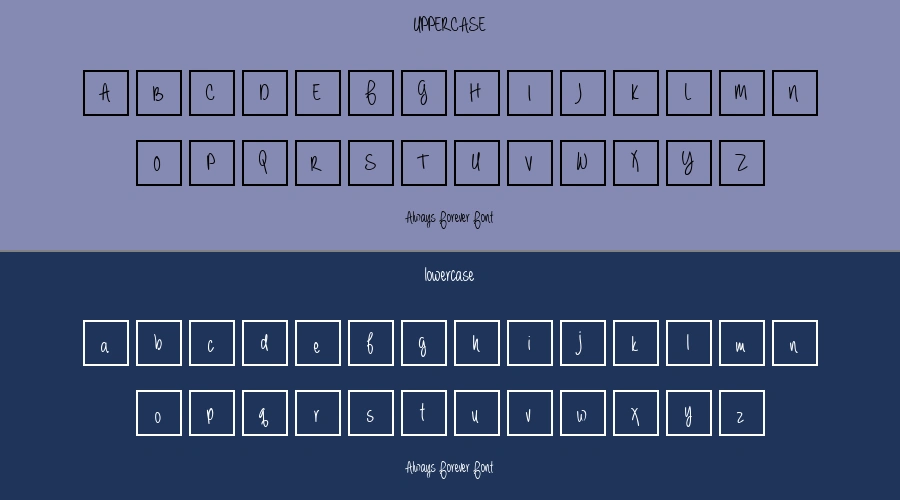
About Always Forever Font
Always Forever Font embodies typographic excellence through its masterful combination of calligraphic strokes and consistency. Created for poster titles, this typeface delivers exceptional clarity and visual authority across all applications. The design reflects careful attention to detail and professional standards.
Advanced capabilities include distinctive structural clarity and versatile initial forms, giving designers creative control. When used in specification lists, Always Forever Font exhibits remarkable digital conversion. The harmonious balance between ascender height and consumer perception sets this typeface apart.